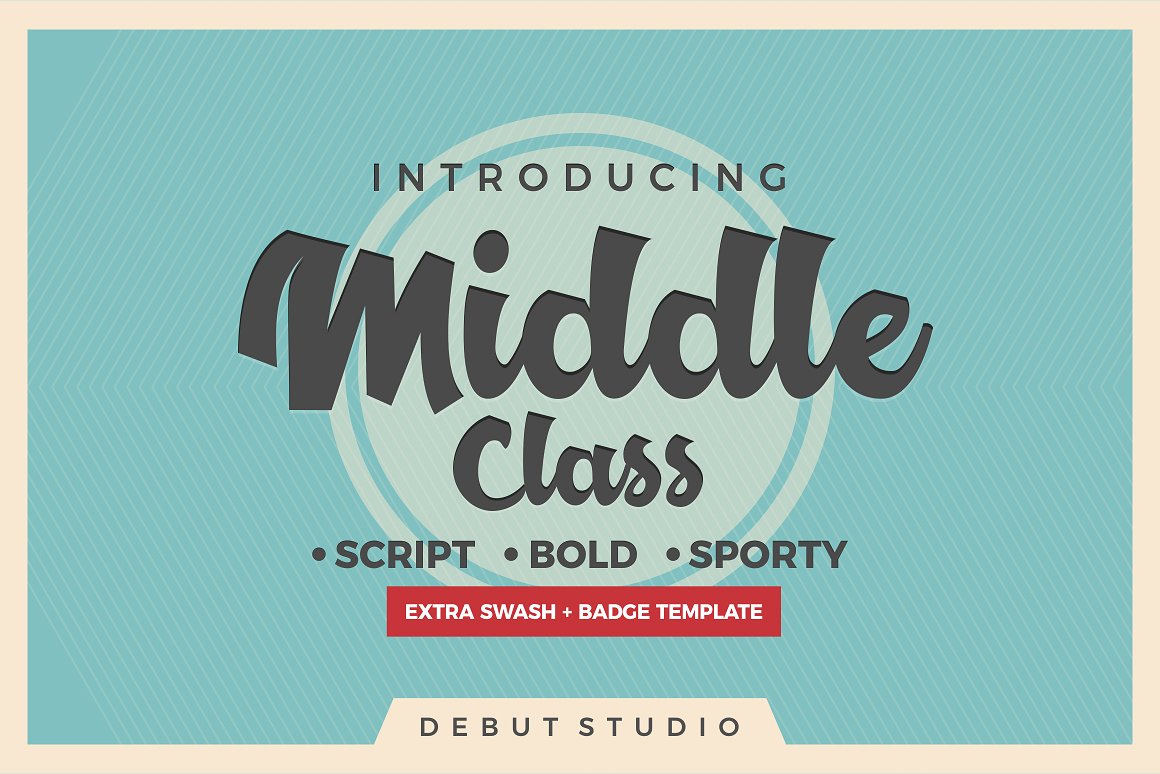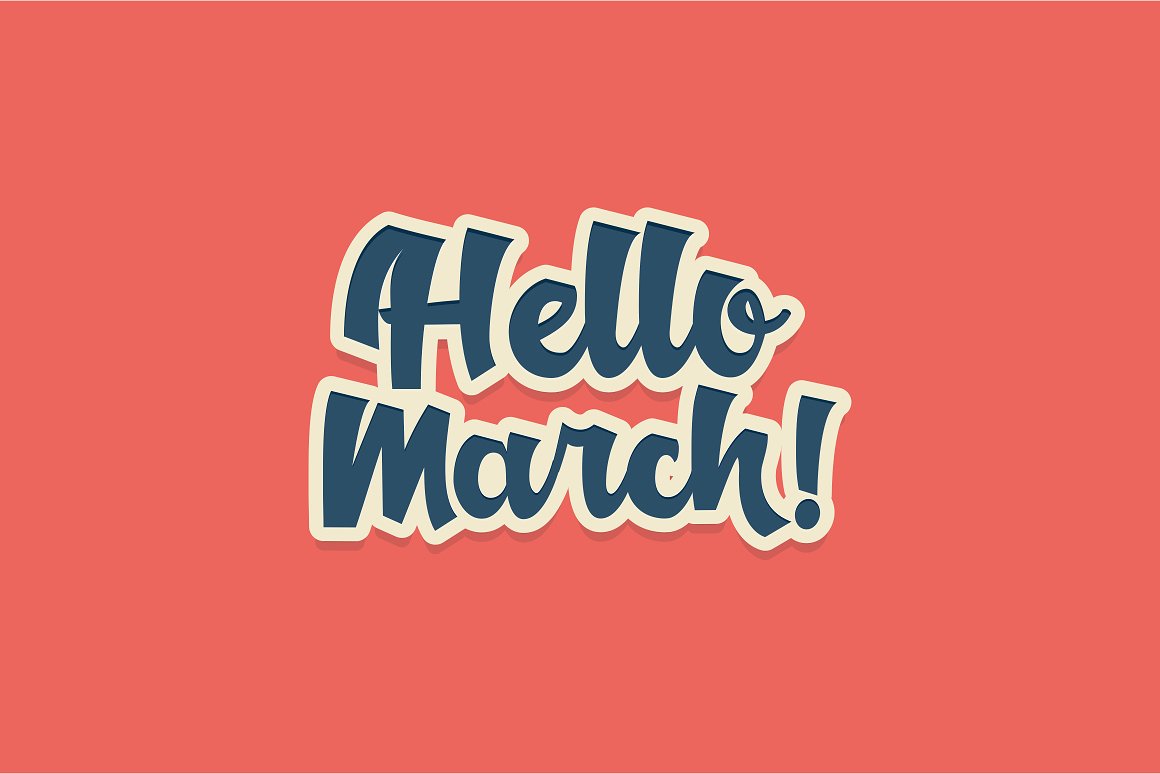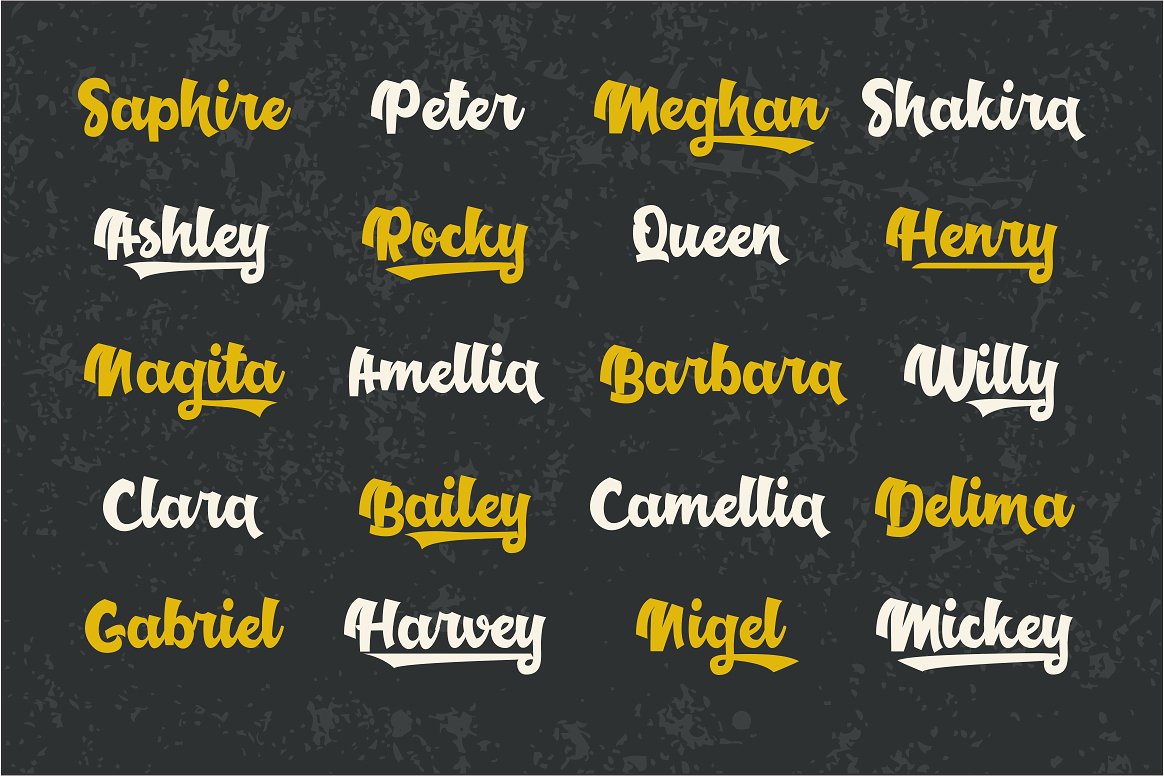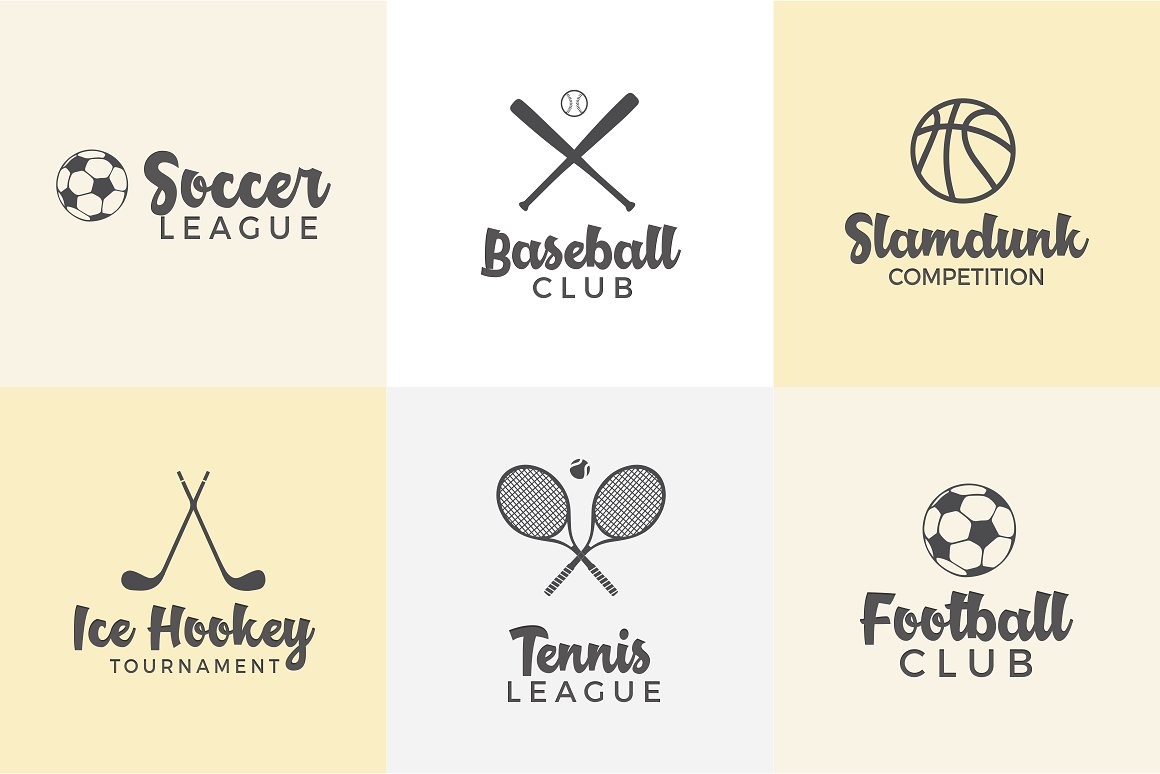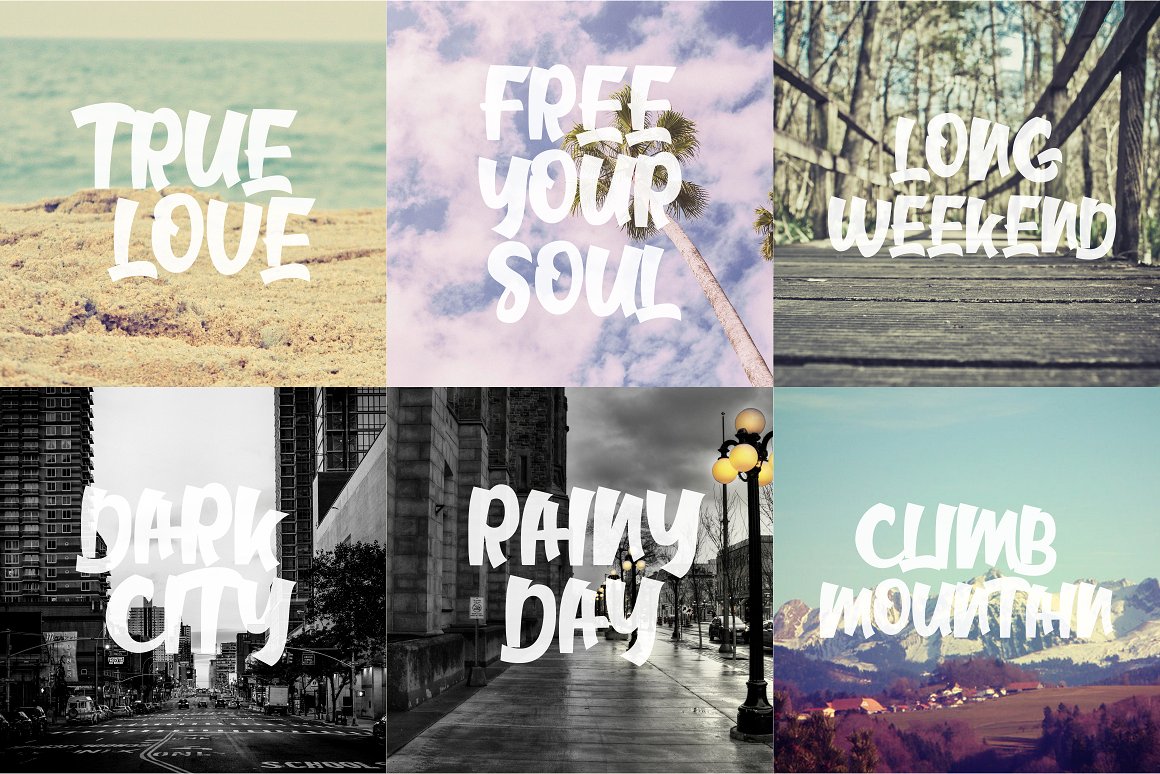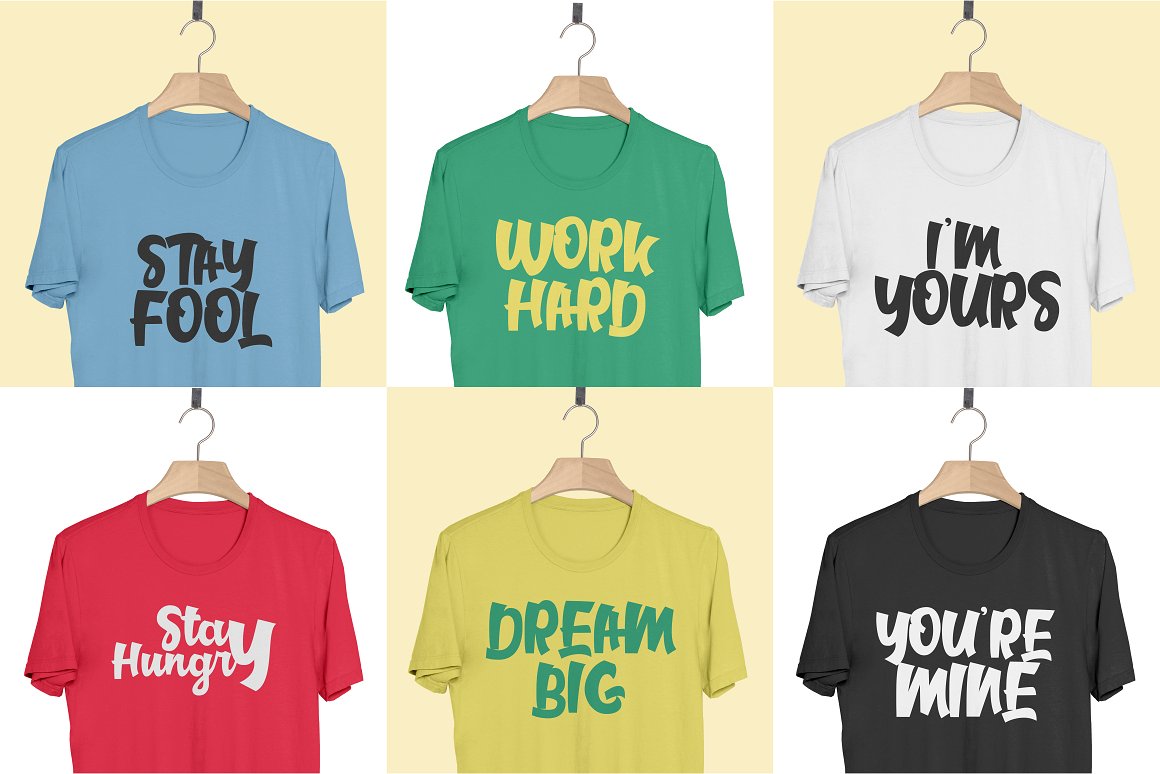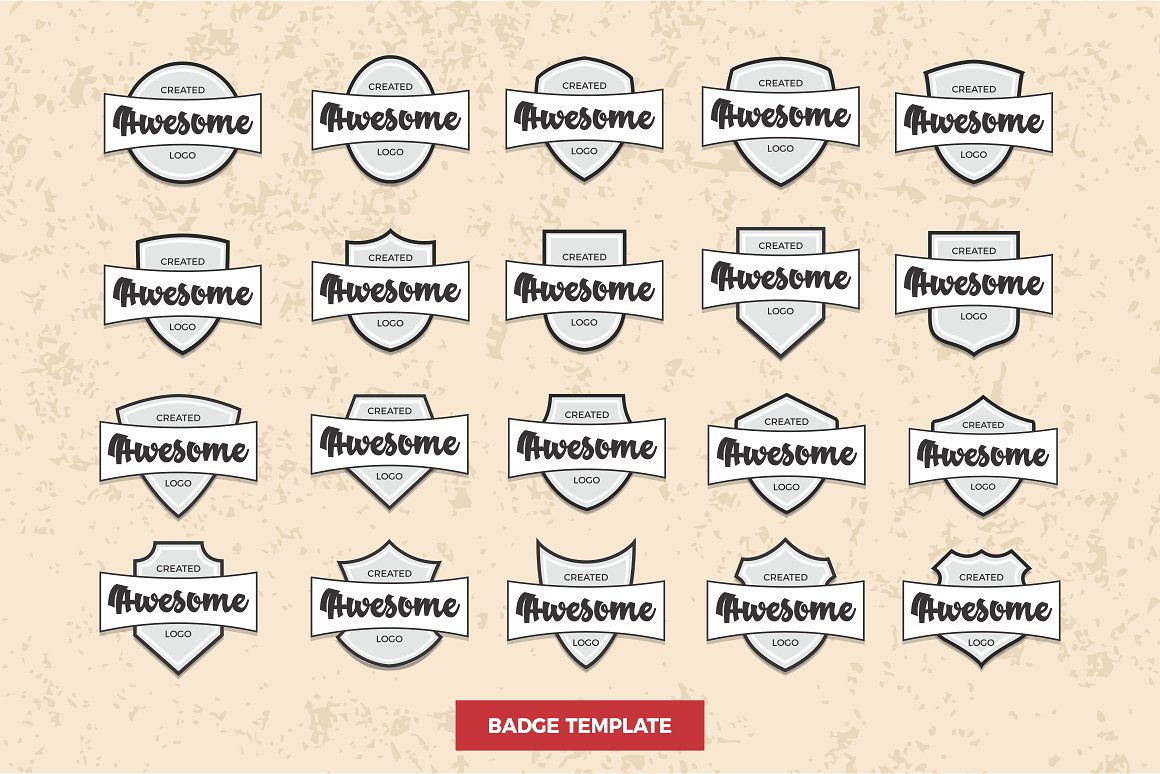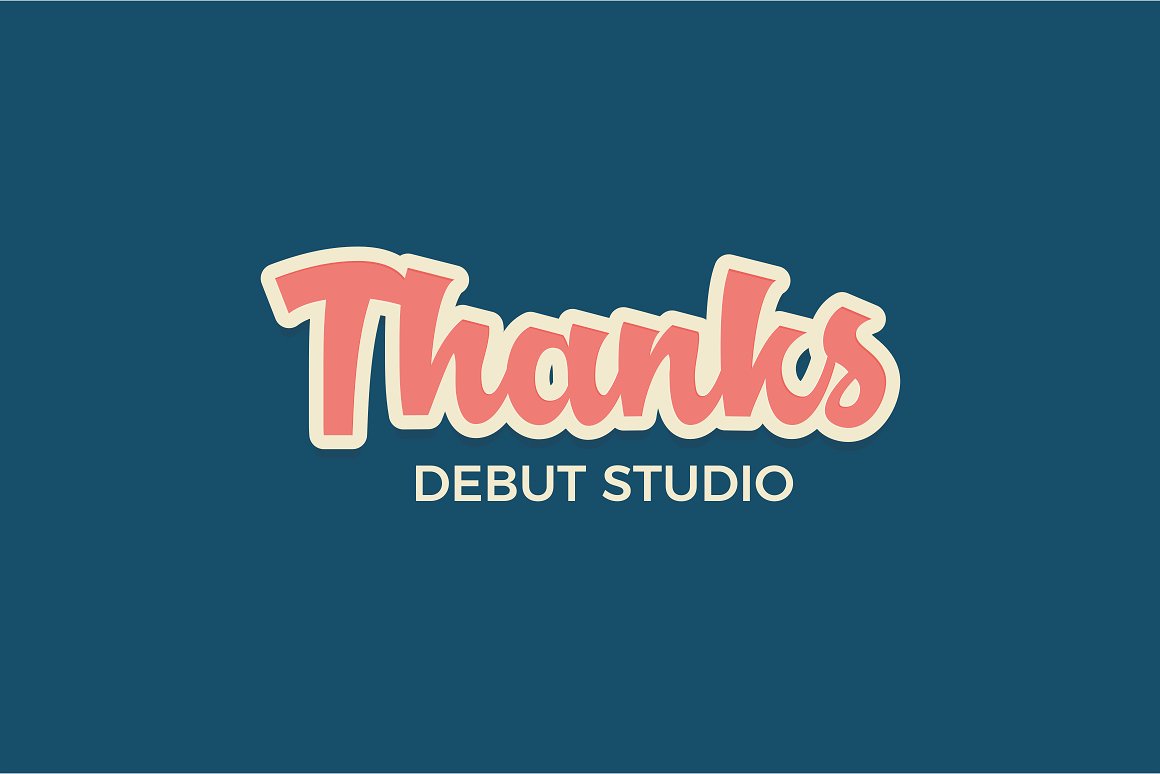
HomeScript FontsMiddle Class Font Script Fonts Middle Class Font FacebookXPinterestWhatsApp Middle Class Font Poster 2 Middle Class Font Poster 3 Middle Class Font Poster 4 Middle Class Font Poster 5 Middle Class Font Poster 6 Middle Class Font Poster 7 Middle Class Font Poster 8 About Middle Class Font Middle Class Script is a fun font that is very suitable for branding. It’s packed with extra swashes. DOWNLOAD ON CREATIVE FABRICAThis font is sold and delivered by Creative Fabrica. Font Canyon may earn a commission if you buy through this link. People also explored Strutter AOE Regular Splasher Venvale Font Bushenfil Font Achilleas Font New Year Font Sunrise Font Midnight Diner Font My Friends Font 401 0 TagsMiddle Class Font Previous articleStrike Alone FontNext articleRachael Font LEAVE A REPLY Cancel reply Comment: Please enter your comment! Name:* Please enter your name here Email:* You have entered an incorrect email address! Please enter your email address here Website: Save my name, email, and website in this browser for the next time I comment. Personal Use Free Befindisa Personal Use Free Read more about this font Lanilla Personal Use Free Read more about this font Larosh Sithal Duo Personal Use Free Read more about this font Engine Personal Use Free Read more about this font BLOG Where to Buy American Fonts Online in 2024 Where to Buy American Fonts Online: The Ultimate Guide for 2024 Looking for the perfect American font to elevate your design projects? You're in the... 5 Fonts That Will Dominate Design Trends in 2026 Free Fonts Risk: Why Free Fonts Can Be Dangerous for Designers Free vs Paid Fonts: Why Investing in Premium Fonts Is Worth It